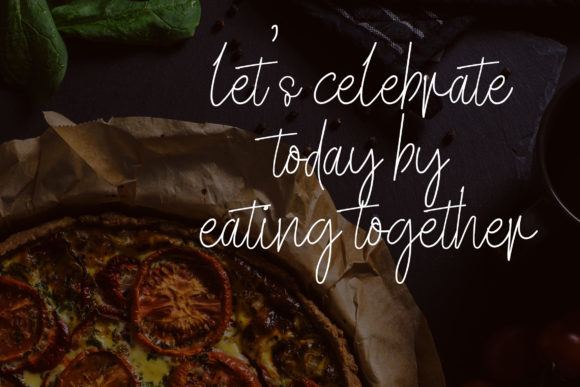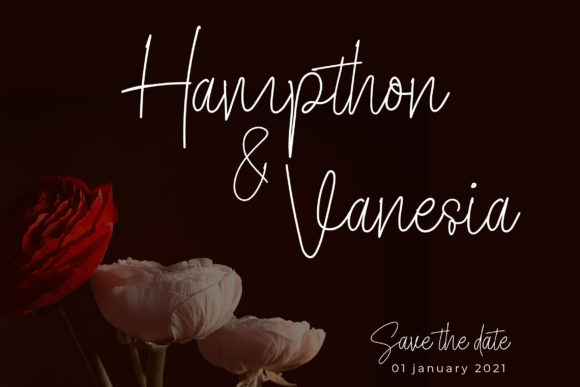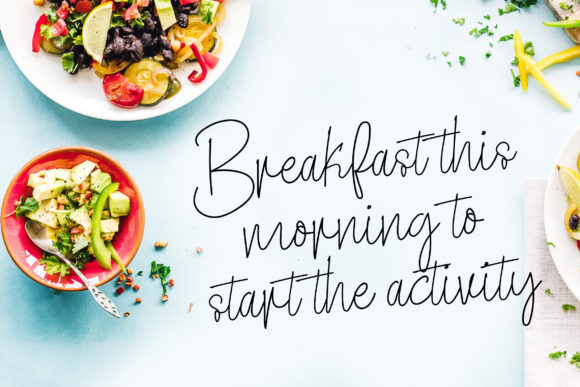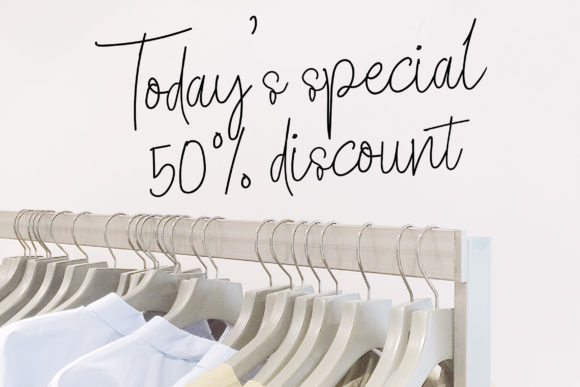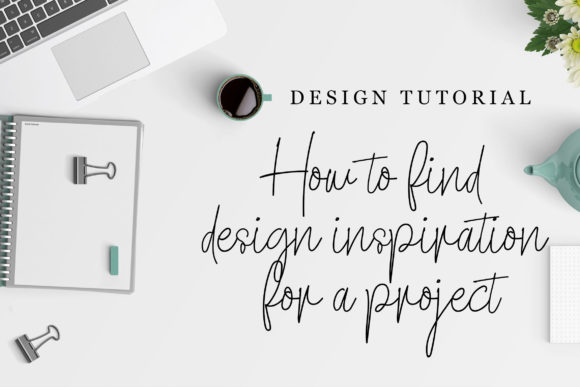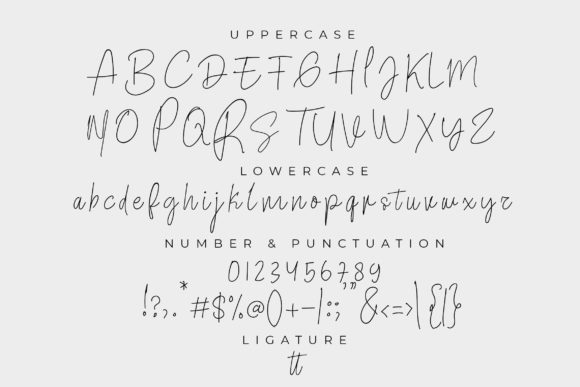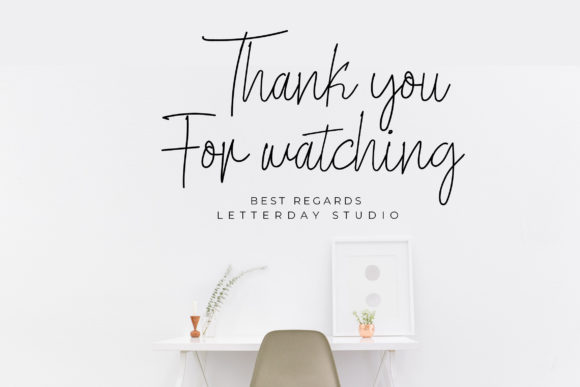
Great Signature Font
About Great Signature Font
Great Signature is a sweet, relaxed and thin lettered script font. It can be used for various purposes such as logos, wedding invitations, headings, t-shirts, letterhead, signage, labels, news, posters, badges and so much more.